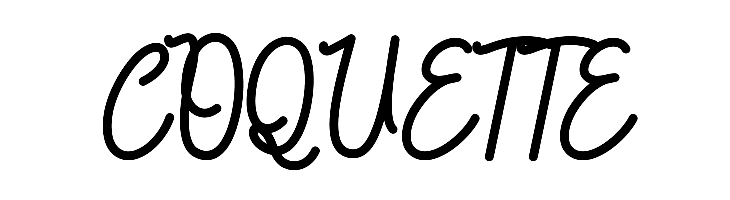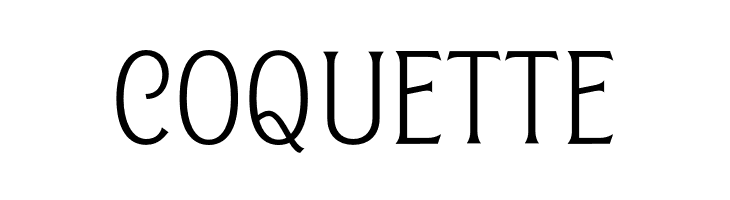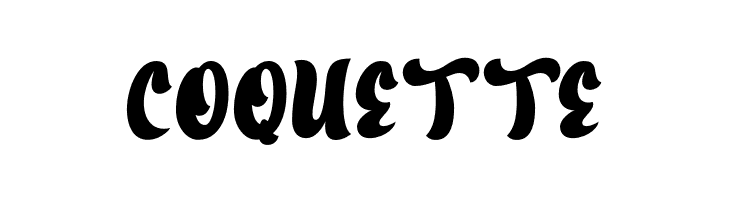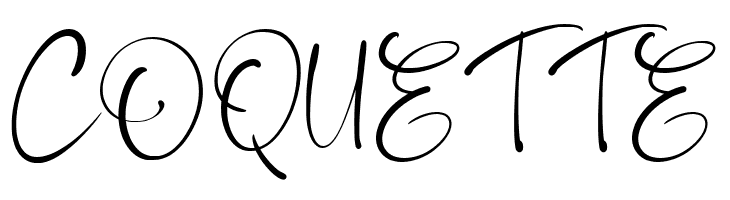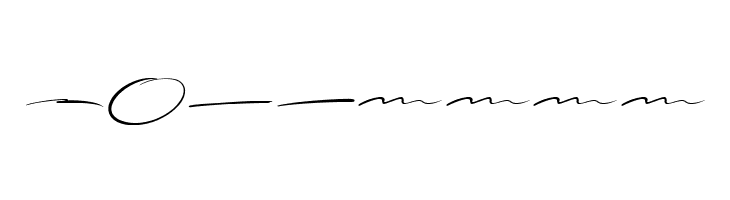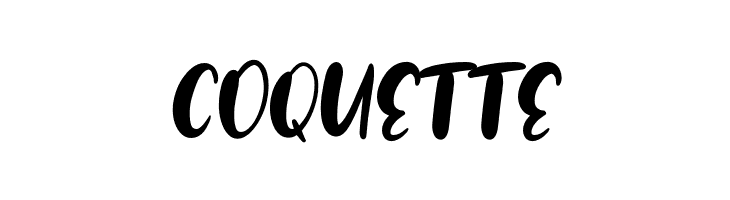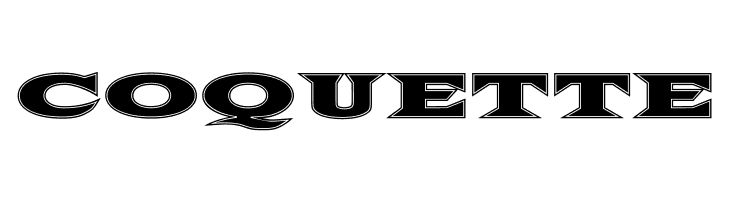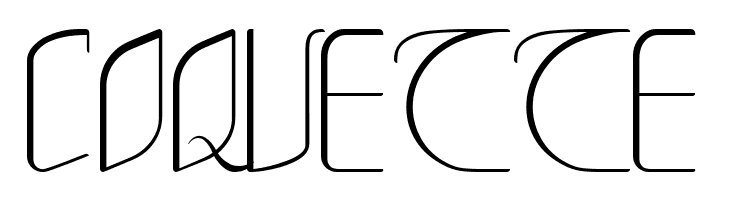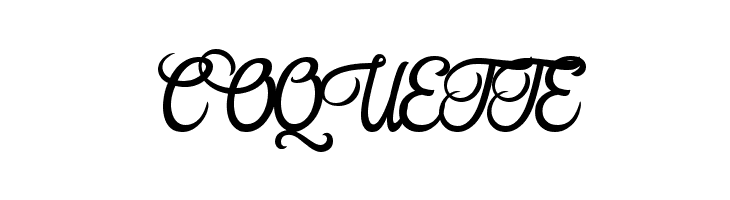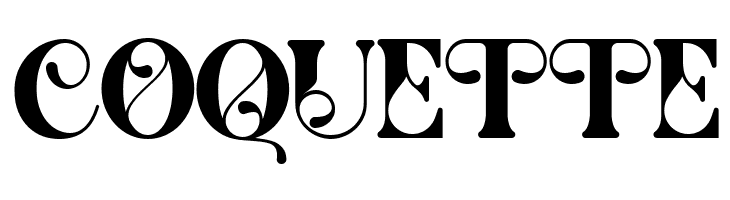
A lively, expressive handwritten font with fluid strokes and playful aesthetics.
A lively, handwritten font with fluid strokes and playful elegance.
A lively and dynamic script font with fluid, connected letterforms.
An elegant, flowing script font with ornate, cursive letterforms.
A sleek, minimalist font with thin, uniform strokes and geometric shapes.
A bold, decorative font with whimsical loops and curves.
A playful and energetic script font with elongated, flowing lines and a casual feel.
A bold Blackletter typeface with ornate, dramatic flourishes.
A bold, ornate blackletter font with Gothic flourishes and sharp angles.
A playful, handwritten font with quirky, uneven strokes.
An elegant, flowing script font with decorative flourishes.
An artistic and elegant font with decorative uppercase and stylish lowercase letters.
A decorative, creature-themed display font with bold, illustrative glyphs.
A bold, stylized font with sharp edges and a three-dimensional effect.
A light, condensed font with a modern yet vintage feel, featuring elegant and refined strokes.
A modern, elegant handwritten font with fluid curves and a sophisticated style.
A lively and flowing script font with elegant, cursive letterforms.
A bold, expressive script font with fluid, interconnected strokes.
An elegant, flowing font with graceful swash elements.
A bold, playful font with thick, rounded strokes and a hand-drawn feel.
An elegant script font with flowing, interconnected letters and intricate swirls.
An elegant and decorative script font with flowing, cursive letterforms.
A playful and elegant script font with flowing, cursive letters.
A hand-drawn, textured font with a casual and artistic feel.
A bold, angular font with a dynamic, forward-leaning design.
A cursive, handwritten font with elegant loops and dynamic strokes.
A bold, flame-inspired font with sharp, angular strokes and dynamic energy.
A decorative font with characters encased in fireworks-like bursts.
A bold, dynamic script font with fluid, connected letterforms.
A bold, italicized handwritten font with fluid, connected strokes.
A playful and elegant script font with a handwritten feel.
A playful, bold font with rounded edges and a hand-drawn style.
A bold, playful italic font with smooth, flowing curves.